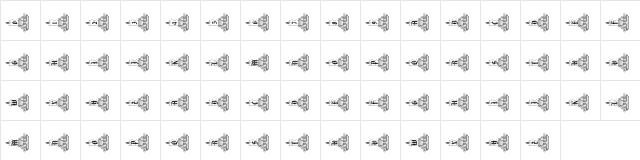
pf_xmas candle_sideways Regular
Design Context for pf_xmas candle_sideways Typeface
pf_xmas candle_sideways is a composed and adaptable typeface that performs quietly and consistently across a wide range of design contexts.